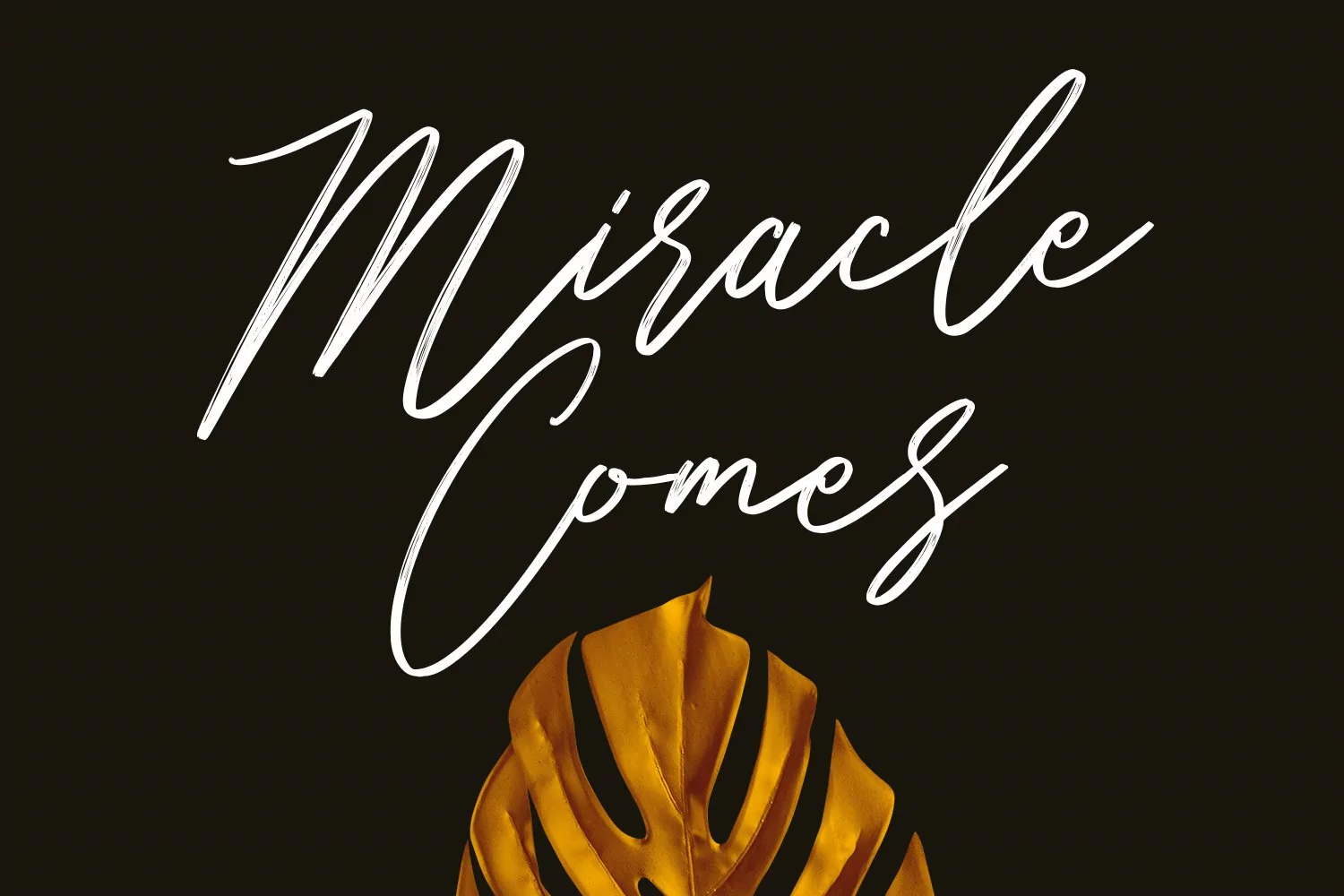
Belostika Brush Script Font is a modern smooth brush script font. With smooth brush stroke, fun character with a bit of ligatures and alternates. To give you an extra creative work. Belostika font support multilingual more than 100+ language. This font is good for logo design, Social media, Movie Titles, Books Titles, a short text even a long text letter and good for your secondary text font with sans or serif. Make a stunning work with Belostika font.